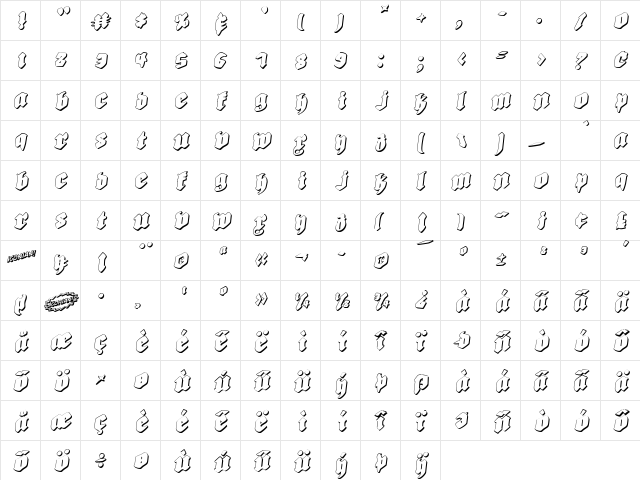
Bierg䲴en Rotalic Shadow Rotalic Shadow
Design Context for Bierg䲴en Rotalic Shadow Typeface
Bierg䲴en Rotalic Shadow is built around its visual character rather than neutral utility — its distinctive forms are designed to make an impression at display sizes.
Font Pairing: Pair with a clean neutral sans-serif for body copy to let Bierg䲴en Rotalic Shadow's character lead without overwhelming the composition.
Pro Tip: Treat Bierg䲴en Rotalic Shadow as the centrepiece of your typographic hierarchy. One strong heading set in a decorative face can carry an entire layout.